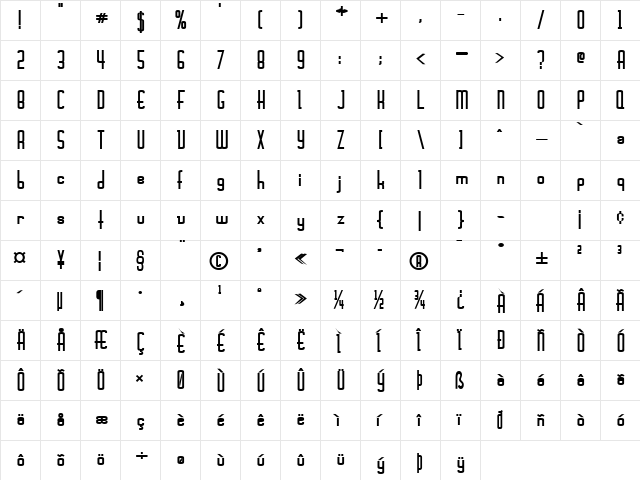
Devon Bold
Design Context for Devon Typeface
Devon offers clean, dependable letterforms without strong stylistic allegiance, making it a practical choice for designers who need flexibility. Its bold stroke weight gives it real presence on the page.